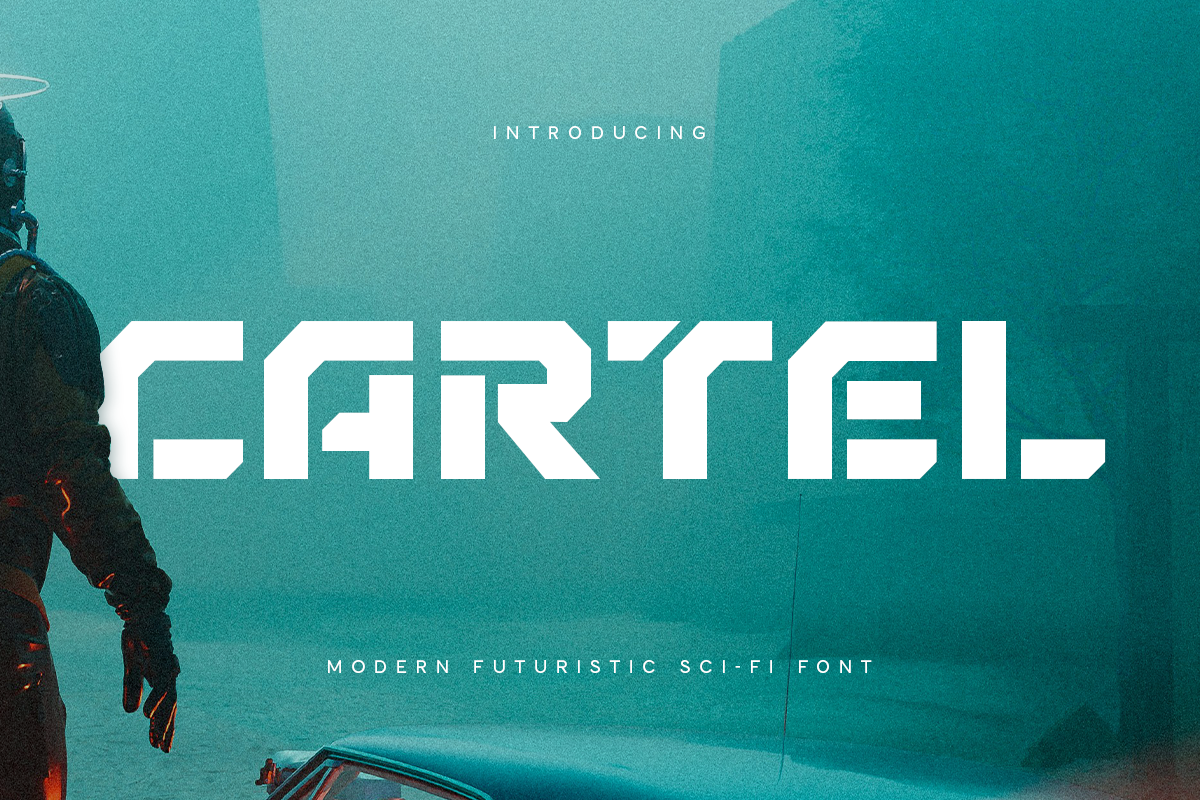
CARTEL - Futuristic Sci-fi Font
Transform your sci-fi and technology projects with CARTEL's bold, futuristic character design. CARTEL is a cutting-edge futuristic technology sci-fi font crafted specifically for logos, film titles, techno posters, technology design, and standout typography that demands attention. This typeface brings the perfect blend of bold styling and modern aesthetics to elevate your sci-fi, futuristic, and technology-themed projects. Whether you're creating compelling headlines or establishing a strong vis...